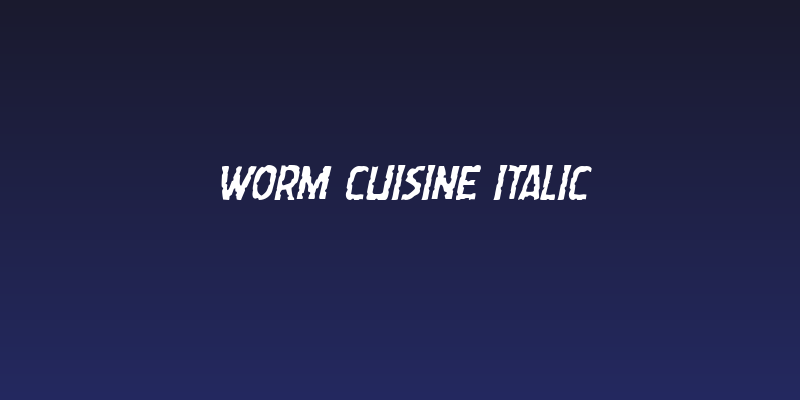
Worm Cuisine Italic Font
Worm Cuisine Italic Description
This font features a bold and dynamic style with a distinct italic slant, giving it a sense of movement and energy. The characters are crafted with a rough, textured appearance, reminiscent of brush strokes or hand-drawn lettering. This adds a unique, artistic flair to the font, making it stand out in any design. The uppercase and lowercase letters maintain consistent proportions, while the numbers and special characters are designed to complement the overall aesthetic. The font's boldness and texture make it suitable for eye-catching headlines and creative projects.
| Proposed Projects | Ideal for artistic posters, dynamic branding, and creative headlines. |